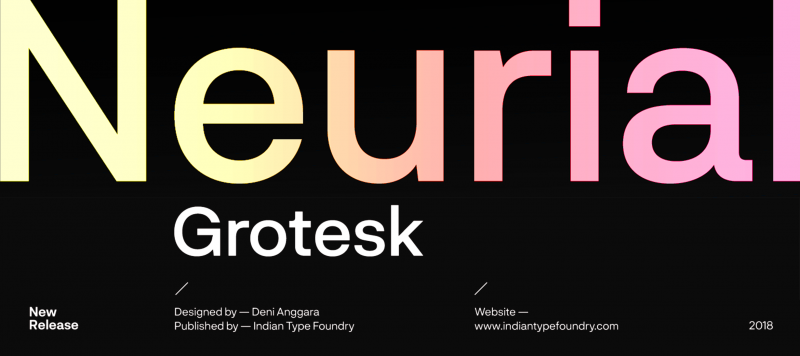
Neurial Grotesk is a family of sans serif fonts designed in the neo-grotesk style. As a typeface, Neurial Grotesk was developed to offer maximum flexibility. The proportions of its letterforms are balanced; these are paired with carefully-crafted diacritics. Neurial Grotesk’s appearance was inspired by twentieth-century modernism and the International Style. However, it is also a heavily constructed typeface, with regularized widths, a minimum amount of stroke modulation, and little optical correction, either. The Neurial Grotesk family includes ten weights, ranging from Light through Bold with matching italics. The fonts feature a tall x-height. The lowercase diacritics are positioned so that most of their tops reach just up to the top of the cap-height. Ascenders rise above this slightly, but the numerals all have the same height as the uppercase letters. Lines of text in Neurial Grotesk can be set tightly and compact. The uppercase includes no descending elements – both the ‘J’ and ‘Q’ keep all of their strokes between the baseline and the cap-height. Each Neurial Grotesk font includes two different forms of the lowercase ‘a’ – one with a tail, the other without. Neat extras include Roman numerals, arrow glyphs, and a few geometric shapes, too. Neurial Grotesk is an excellent selection for use in branding and corporate design.
Family Name | Neurial Grotesk |
Designer(s) | Deni Anggara |
Classification | Sans |